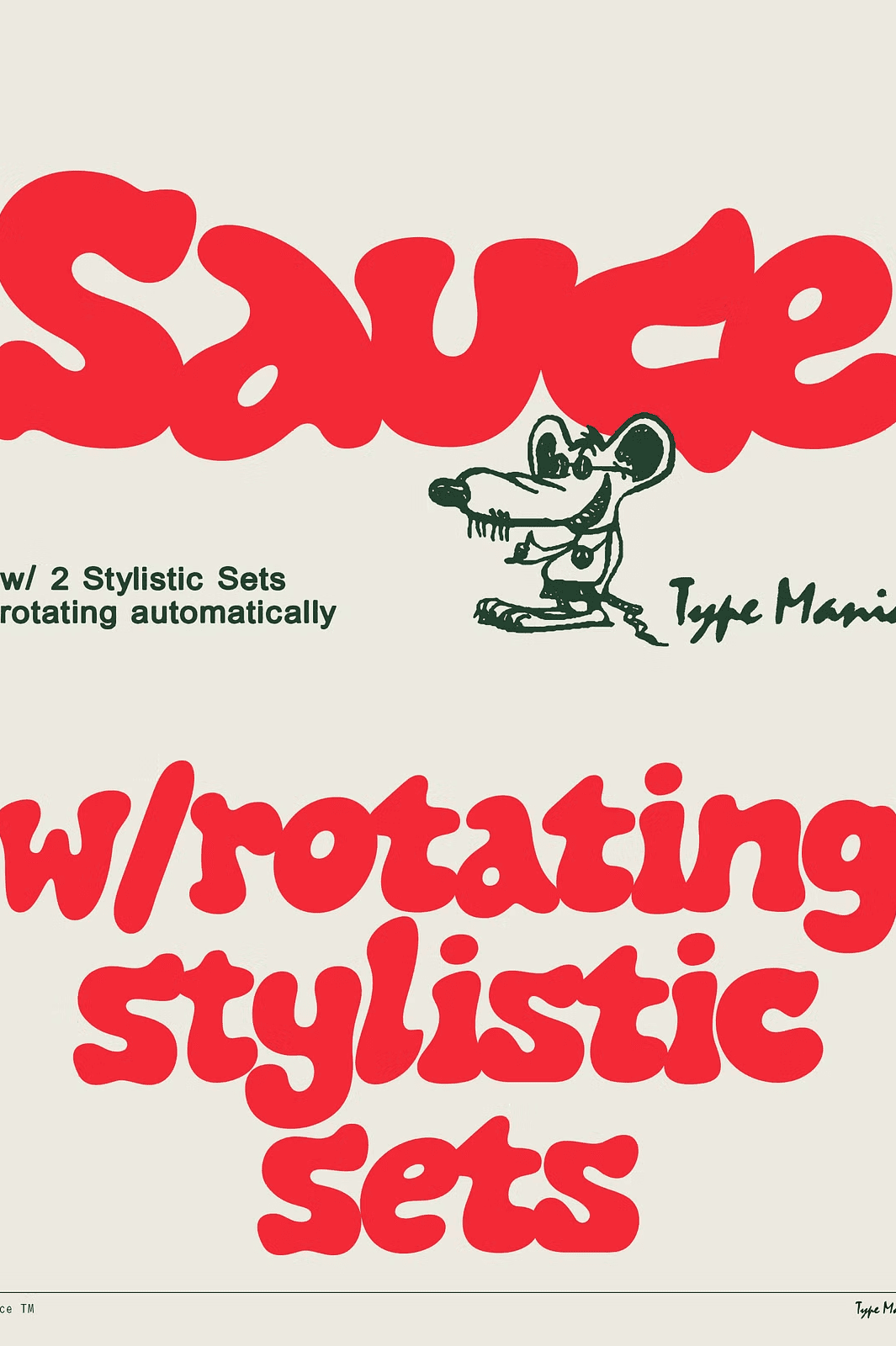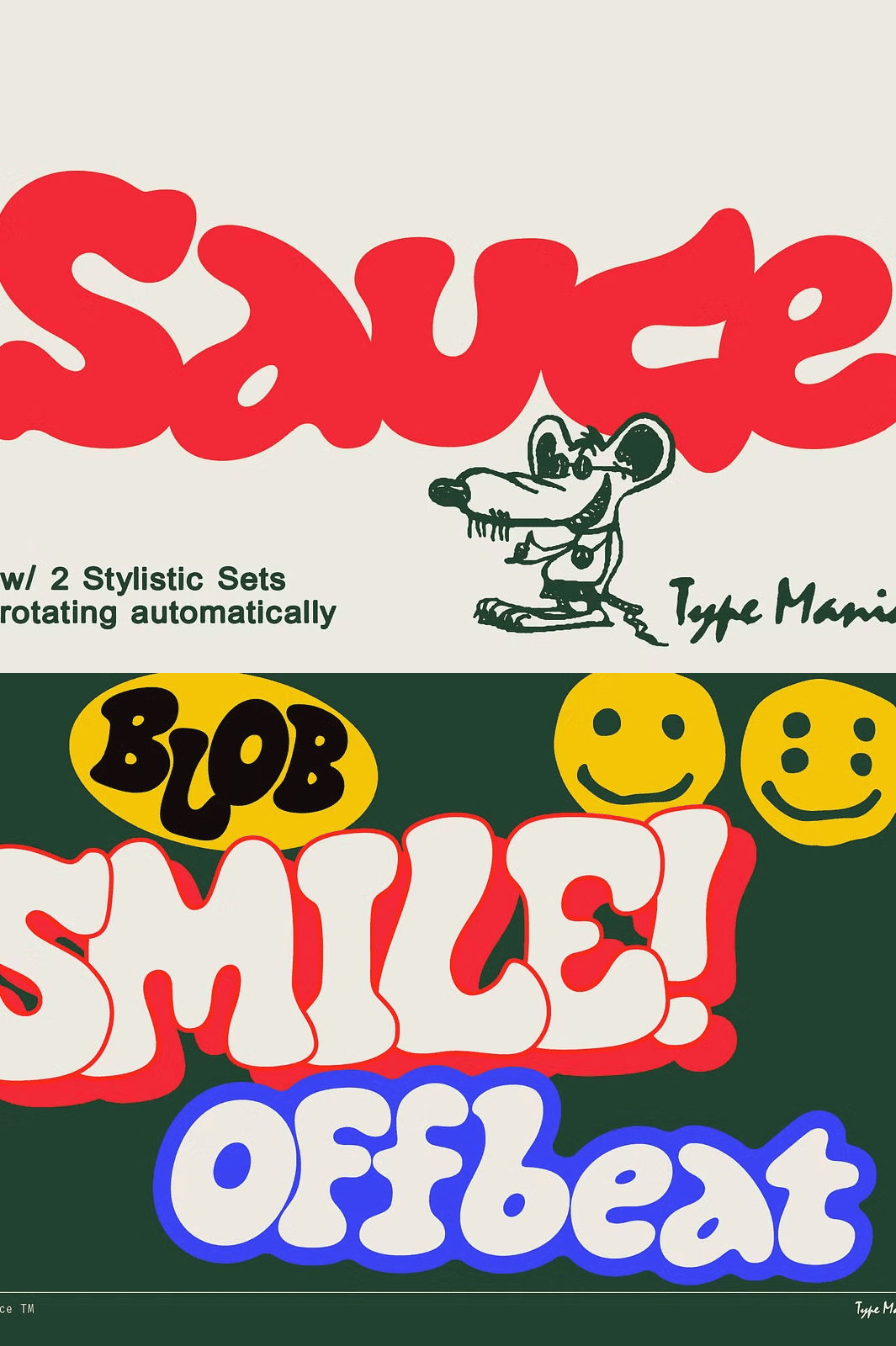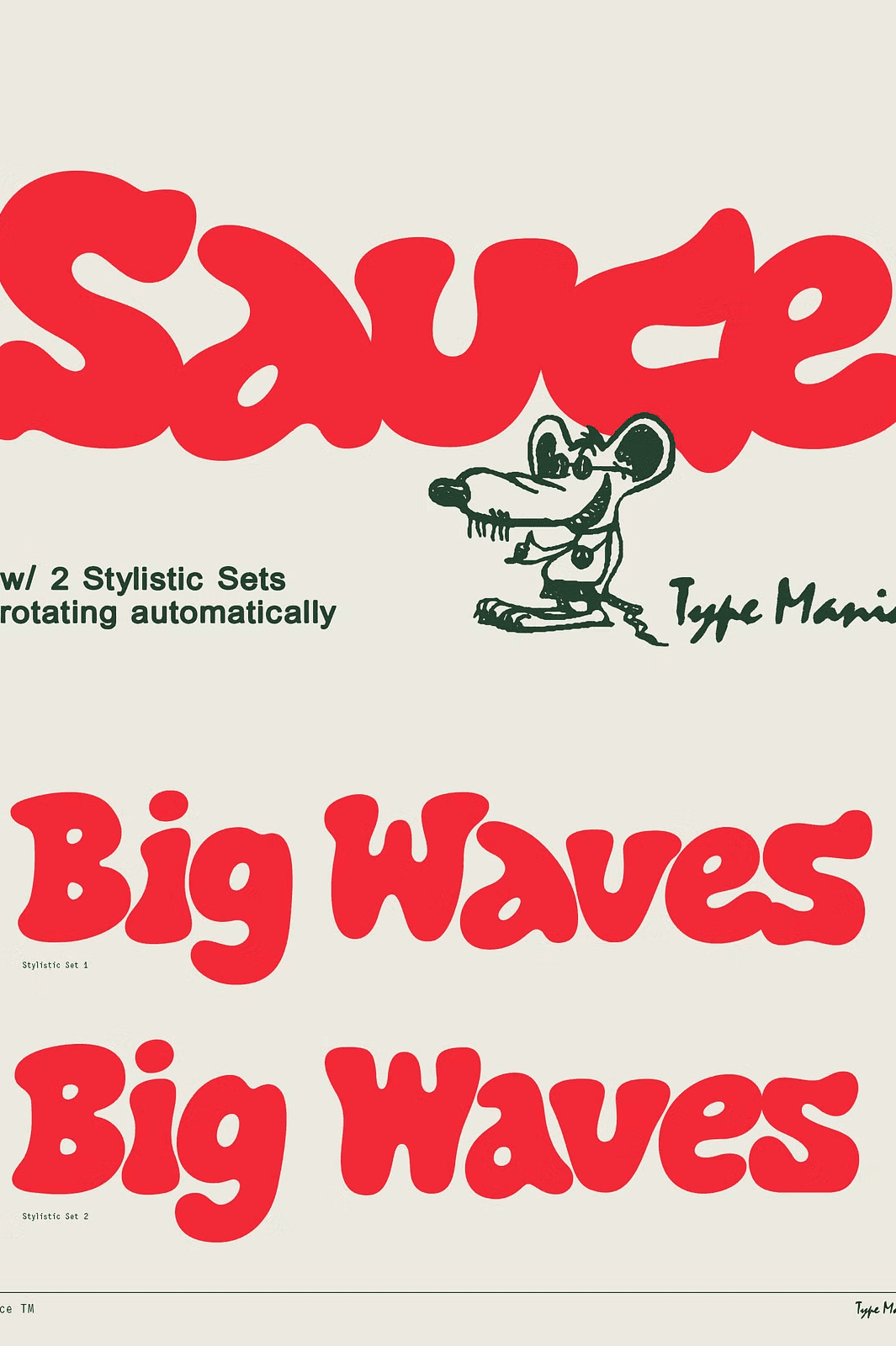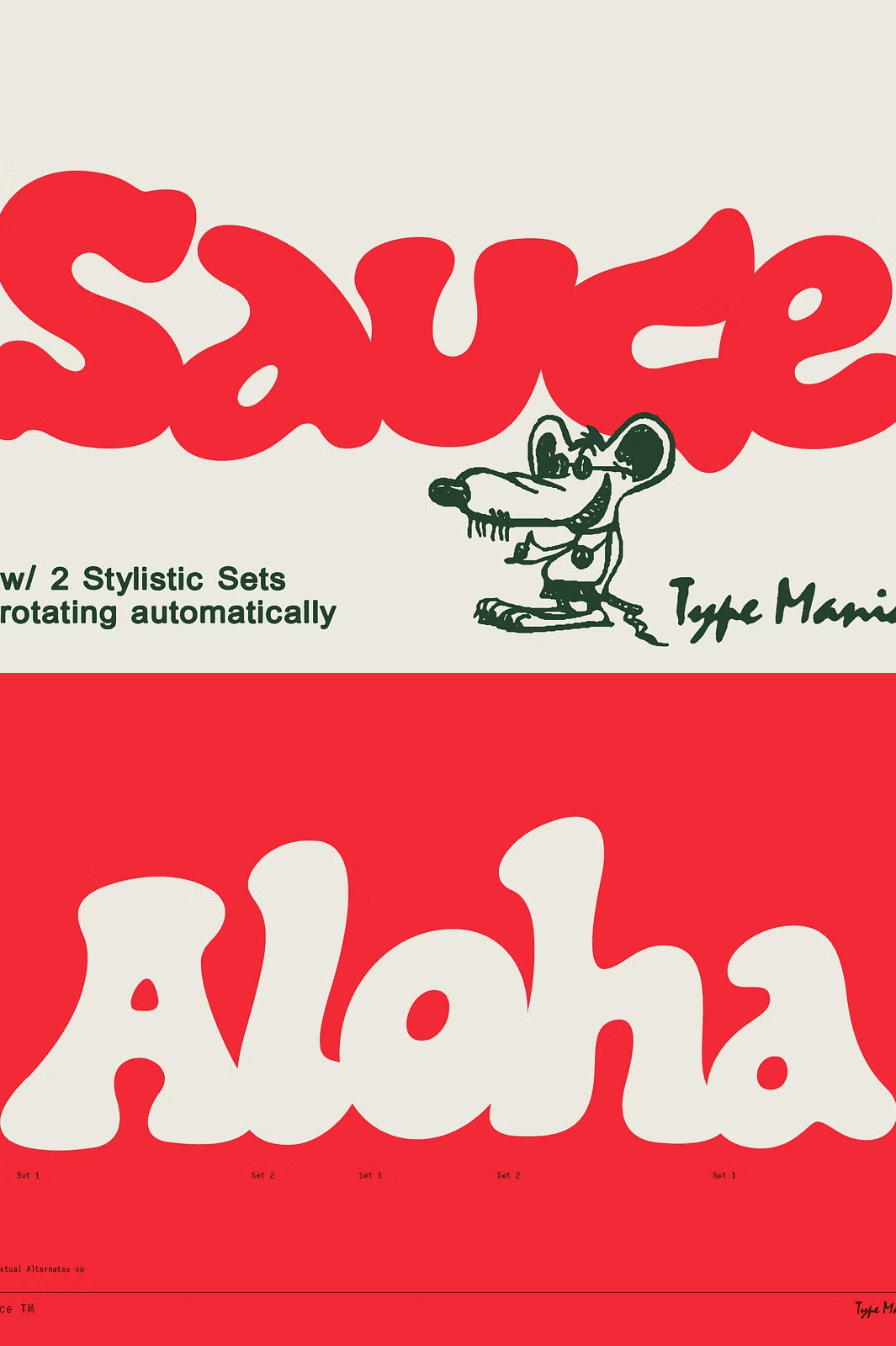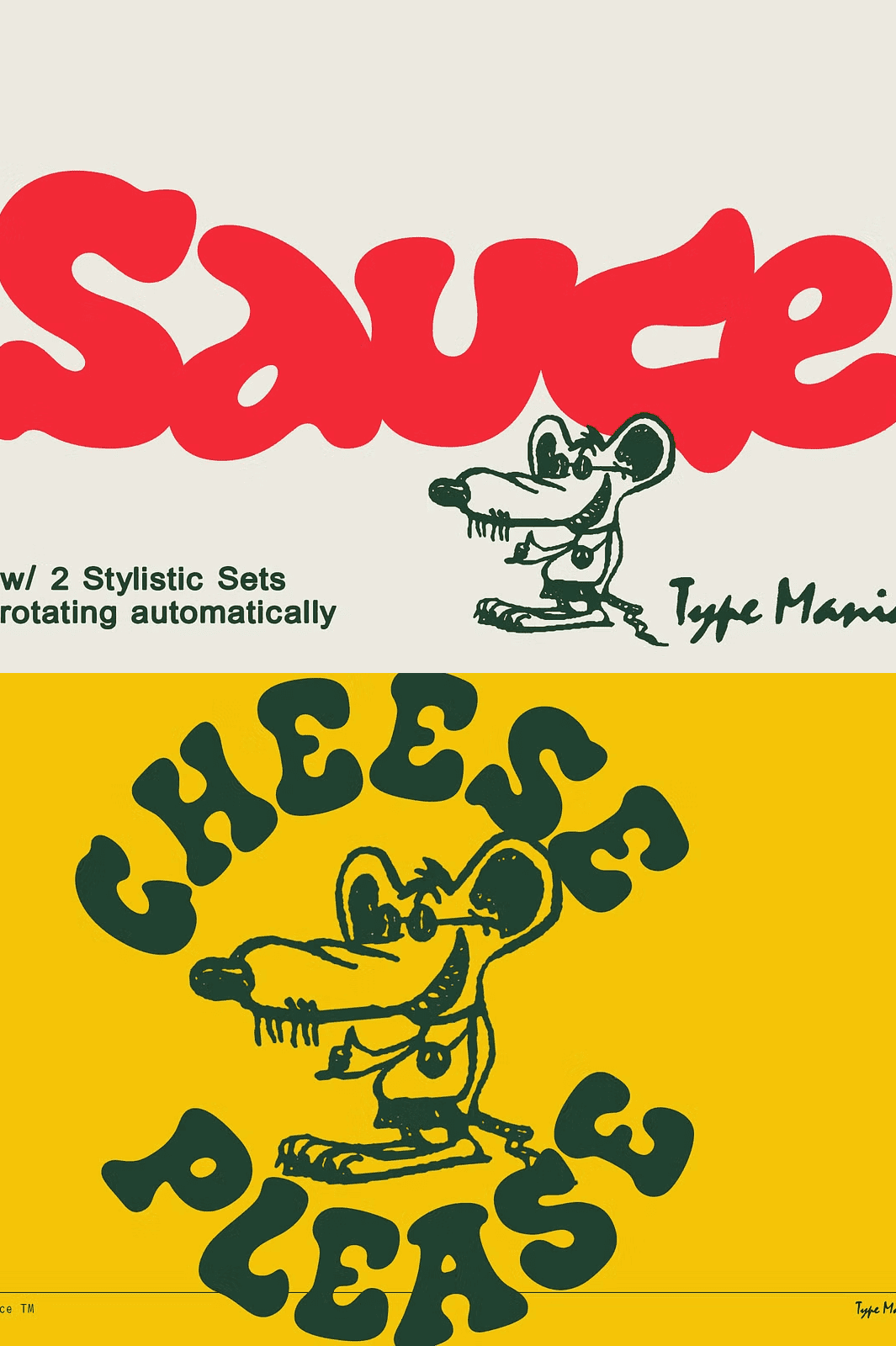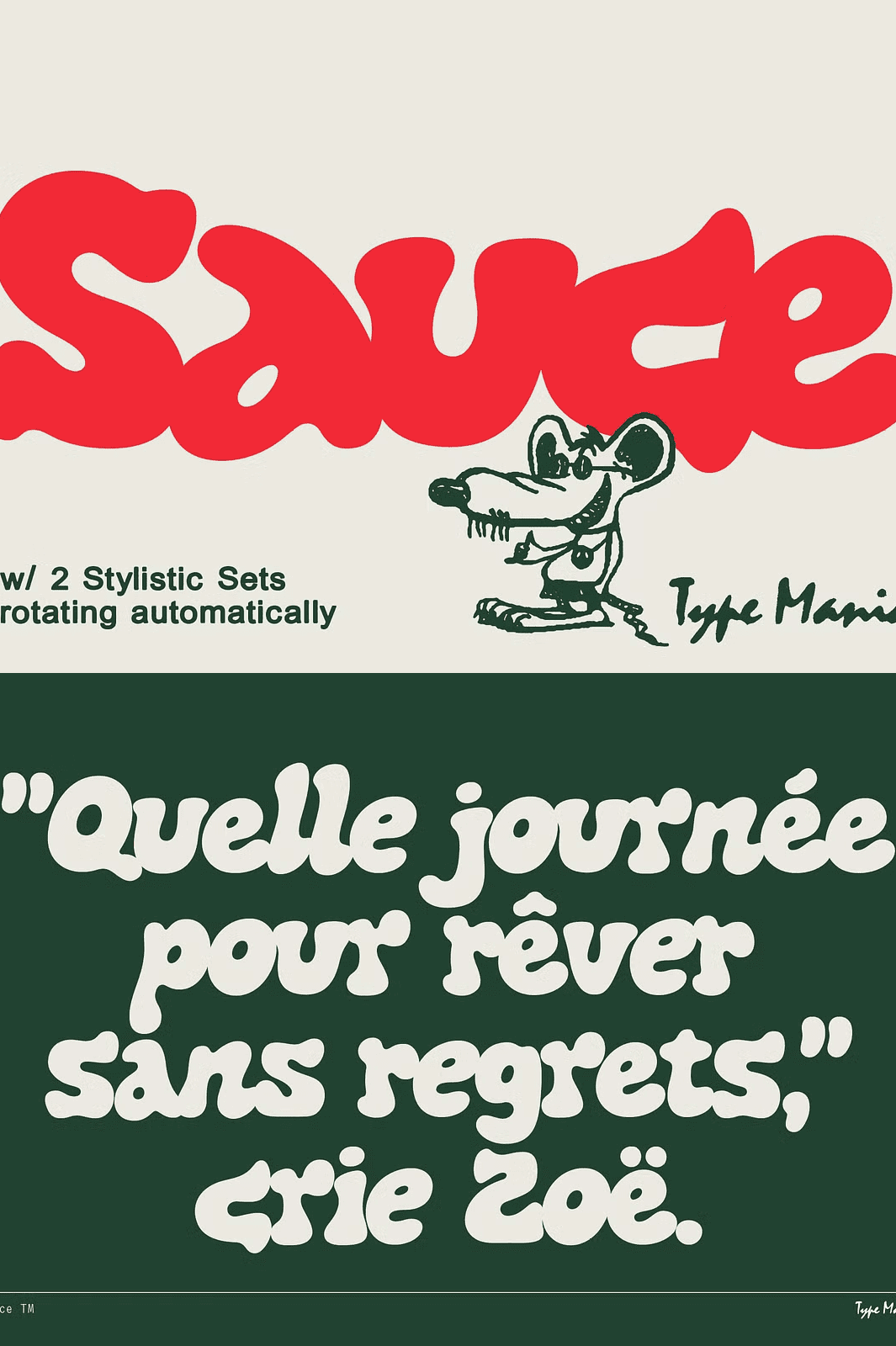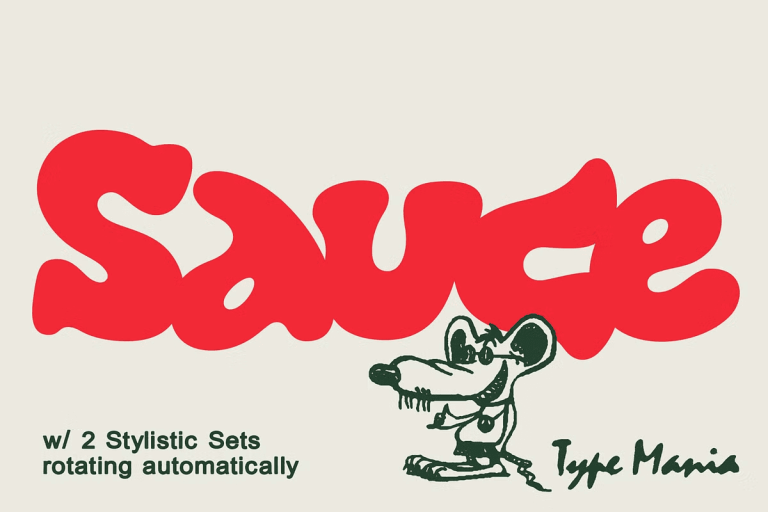
Dynamic Contextual Alternates Create an Organic Flow in Every Layout
Sauce TM delivers a soft‑edge, bold presence that instantly captures attention. By toggling the Contextual Alternates feature, designers can let the font automatically cycle between two distinctive stylistic sets as they type. This intelligent behavior adds a lively, almost automatic rhythm to headlines, logos, and body copy, letting you focus on creativity instead of manual adjustments.
Comprehensive Font Package Supplies All Formats and Advanced OpenType Features
Two Powerful Stylistic Sets Provide Instant Visual Variety
Both stylistic sets are pre‑programmed to shift automatically, giving you a rapid way to experiment with different aesthetics. One set offers a classic, rounded bubble feel, while the other adds subtle angular accents for a more dynamic look. Switch between them on the fly to match the mood of each project.
OpenType Features Streamline Workflow and Enhance Legibility
Beyond contextual alternates, Sauce TM supports standard OpenType capabilities such as ligatures, discretionary alternates, and kerning adjustments. These features reduce manual tweaking, allowing you to produce polished typography faster and with greater consistency.
Extensive Language Coverage Expands Creative Possibilities Worldwide
Full Basic Latin, Western European, Euro, Central European, and Pan‑African Latin Support
From English to French, German, Polish, and numerous African languages, Sauce TM’s glyph set covers a broad spectrum of characters. Designers can confidently craft multilingual campaigns, international branding, and localized editorial pieces without compromising visual integrity.
Ideal Use Cases: From Brand Identities to Interactive Interfaces
Branding and Logo Design Benefit from the Font’s Playful Authority
The combination of smooth curves and bold weight makes Sauce TM perfect for creating memorable logos, product labels, and packaging that stand out on shelves and digital storefronts.
Editorial and Print Layouts Gain Energy Through Automatic Alternates
Magazine spreads, poster series, and book covers become more engaging when the font’s contextual alternates inject subtle variation into repeated headings and pull quotes, keeping the reader’s eye moving.